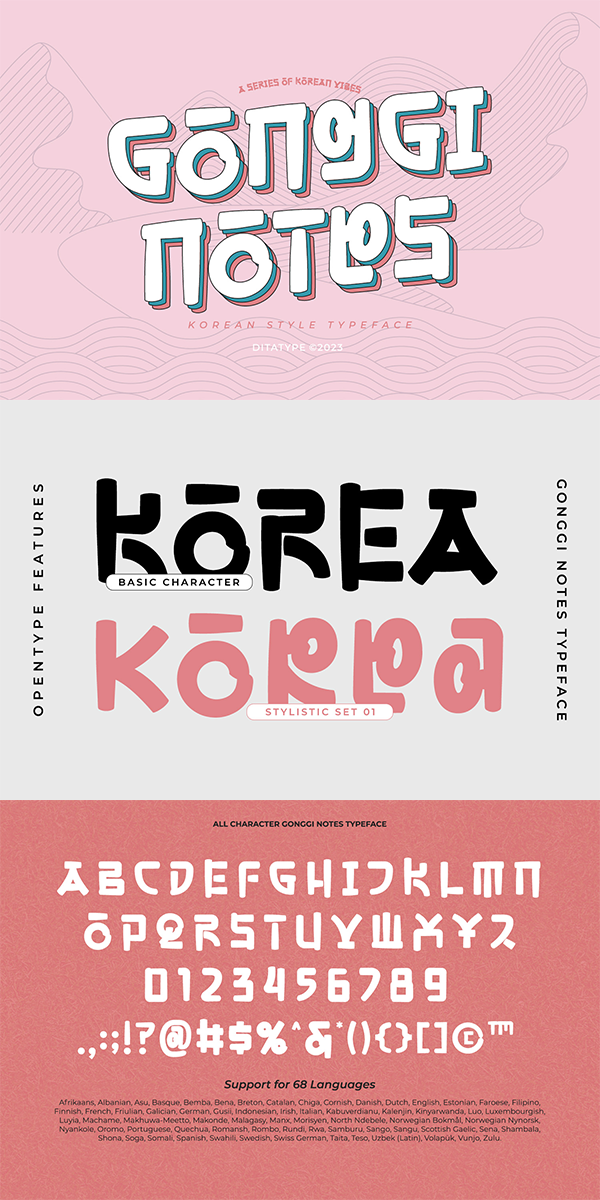
Gonggi Notes Font
About Gonggi Notes
Gonggi Notes is an enchanting display font that splendidly encapsulates the charm of Korean typography with a modern twist. One of the most distinctive characteristics of Gonggi Notes is its fairly thick letter weight, which gives each character a robust and welcoming presence. This heftiness ensures that the font stands out on any page or screen.
Despite its substantial weight, Gonggi Notes maintains a delightful roundness in its letter shapes. This design choice softens the overall appearance of the typeface, lending it a friendly and approachable quality. The rounded contours also echo the organic shapes found in natural Korean landscapes and art, bringing a touch of cultural authenticity to the font. In addition, enjoy the features here.
Gonggi Notes fits in headlines, logos, posters, flyers, branding materials, greeting cards, print media, editorial layouts, and many more designs. Find out more ways to use this font by taking a look at the font preview.